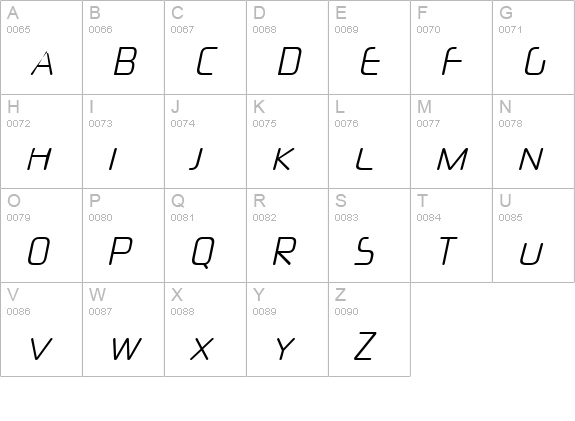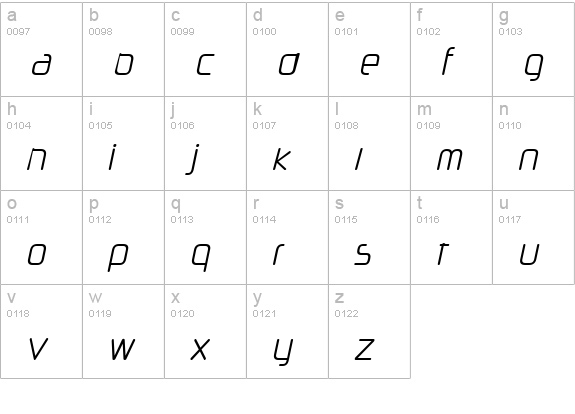
Neuropol X Cnd Lite Italic Font Details
Neuropol X Cnd Lite Italic is a distinctive, italic variant in the Neuropol typeface family \xE2\x80\x94 well suited to design and typography projects.
Neuropol X Cnd Lite Italic font is a modern and sleek typeface that exudes sophistication and elegance. Its italic style adds a touch of flair and creativity to any design project. This font is perfect for making a bold statement in headlines, logos, or branding materials. The best part is that Neuropol X Cnd Lite Italic font is available for free download at FontsMarket.com. Whether you're a designer looking to enhance your creations or an individual seeking to add a unique touch to your personal projects, this font is a fantastic choice. Don't miss out on the opportunity to elevate your designs with this striking typeface.